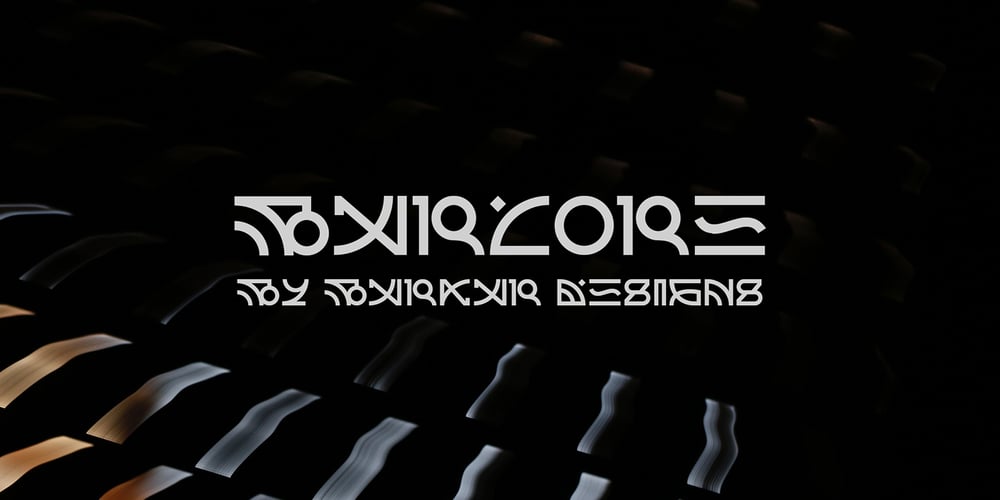
Barcore Font Family was designed by Artem Sinigur and published by Barkar Designs. Barcore contains 1 styles and family package options. This font was designed to create unique typography in graphic design. It consists of one style and only capital letters. It is deliberately complicated by the addition of styles and lines that are not traditional for the latin or cyrillic alphabet, which adds zest, makes you look closely. The uniqueness of this font also lies in the fact that it is made in a geometric style using only square angles or perfect rounding in glyphs. This font will add futurism to your project, the unusual font always looks stylish and memorable. I am sure that the font will come in handy for those who want to add something new, modern and unique to their work.